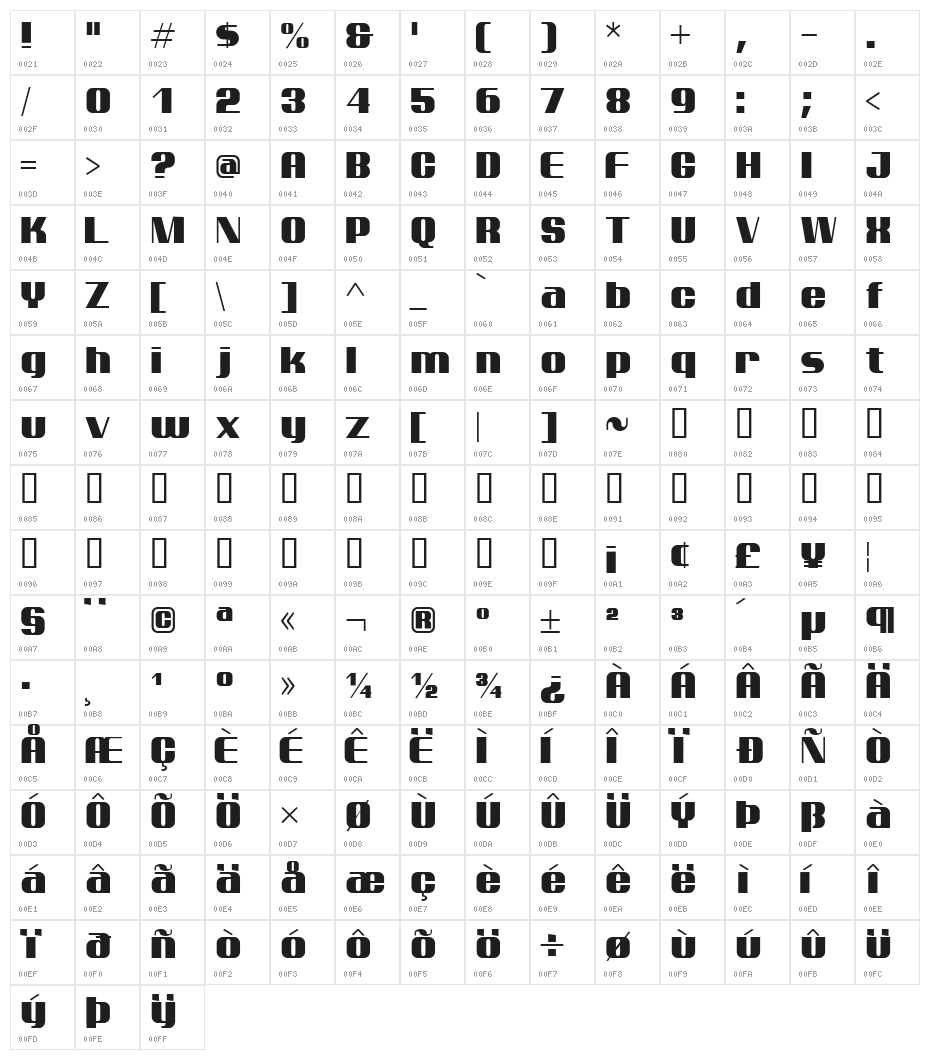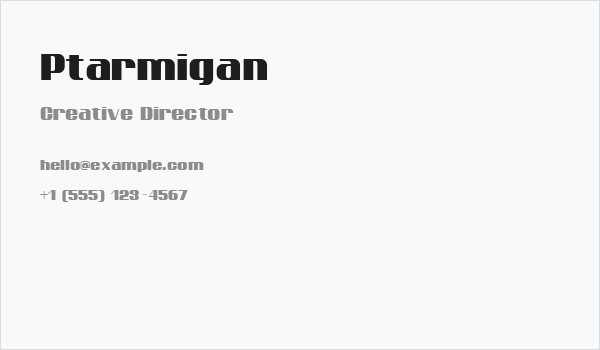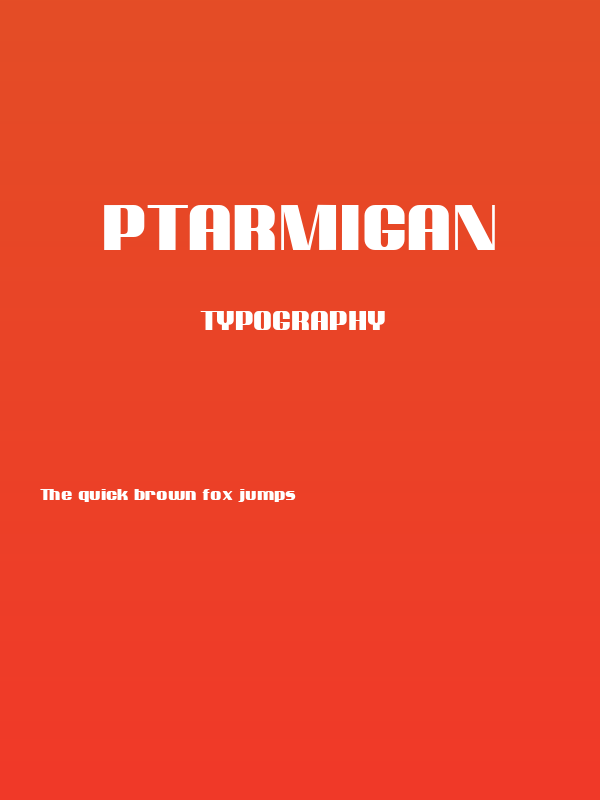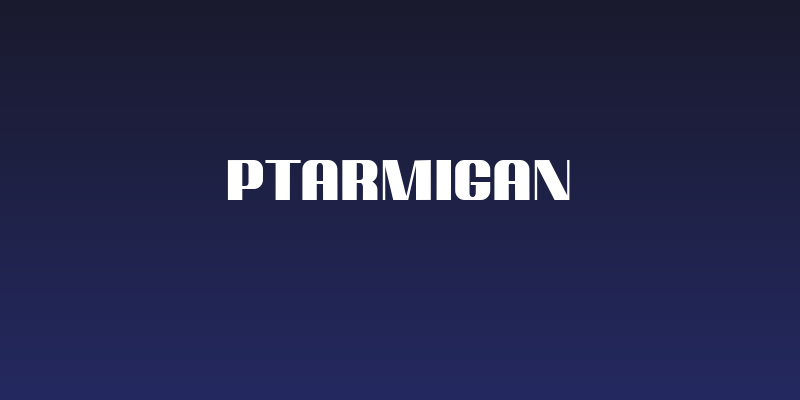
Ptarmigan Font
Ptarmigan Description
This font features a bold and striking design with a strong geometric influence. The characters are wide and have a substantial presence, making them ideal for impactful headlines and titles. The uppercase letters are particularly distinctive, with a uniform height and bold strokes that convey a sense of strength and authority. The lowercase letters maintain the boldness while offering a slightly more compact form. Numbers and special characters are designed to match the overall bold aesthetic, ensuring consistency across all text elements. The font's design is modern and assertive, suitable for projects that require a commanding visual presence.
| Proposed Projects | This font is perfect for branding, advertising, posters, and any project that requires a strong visual impact. |